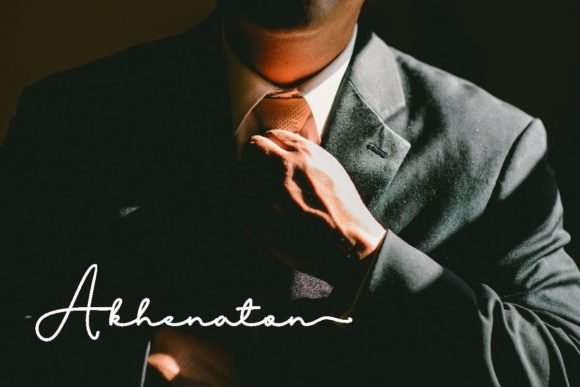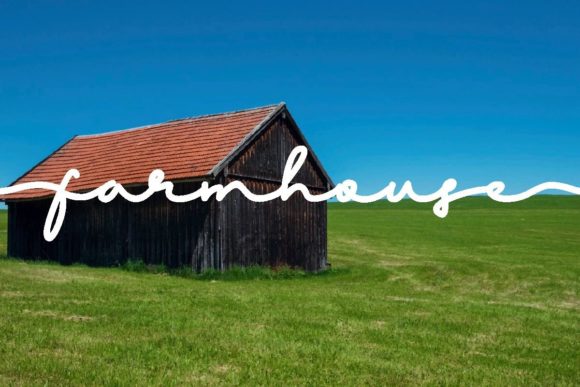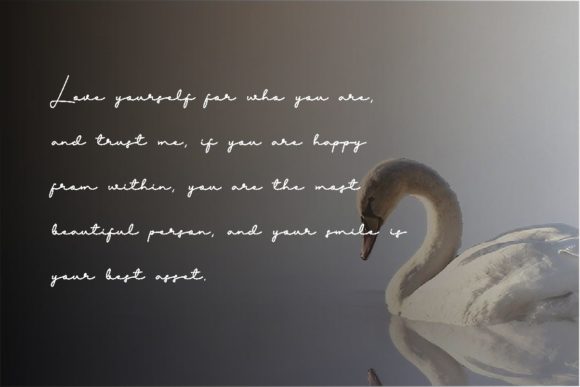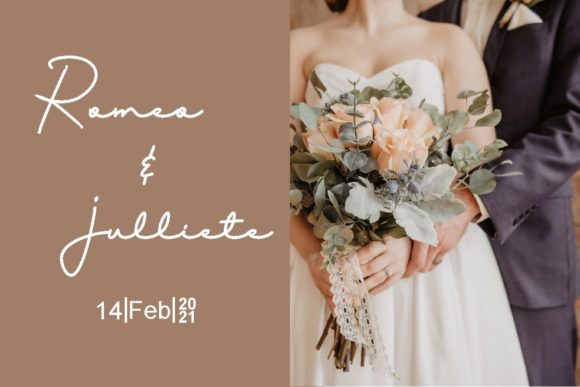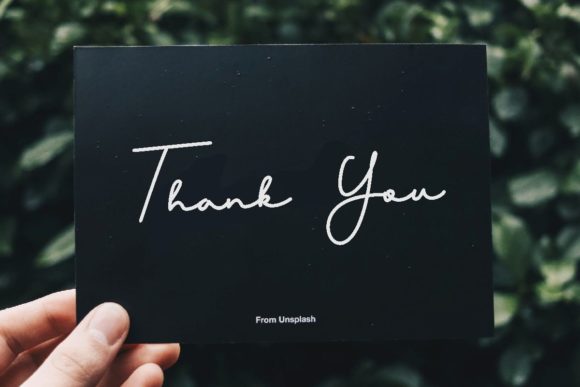
About Beautiful Signature Font
Beautiful Signature is an exquisite handwritten font, masterfully designed to become a true favorite. This font is PUA encoded which means you can access all of the glyphs and swashes with ease!
Fall for its ravishing style and use it to create gorgeous designs!